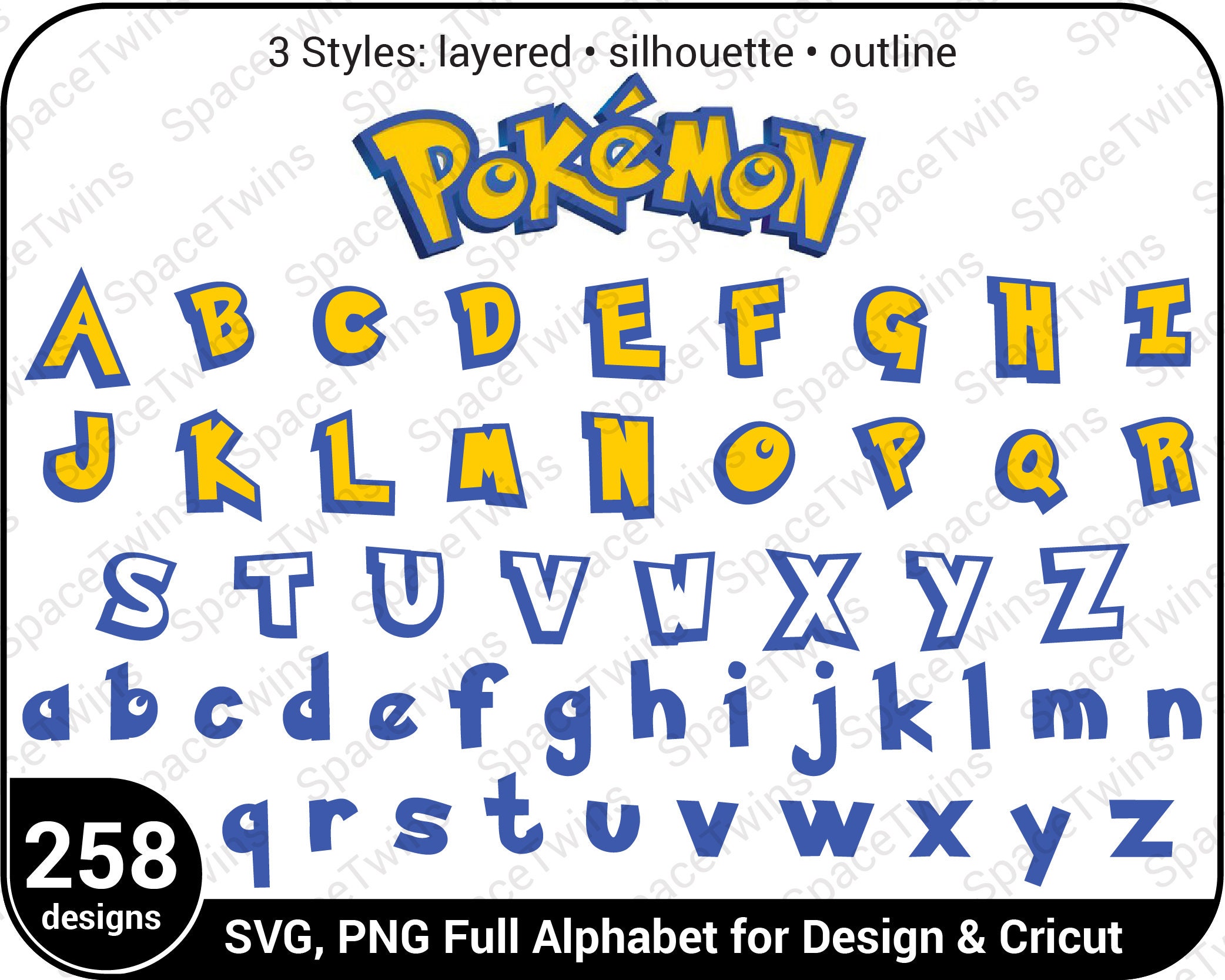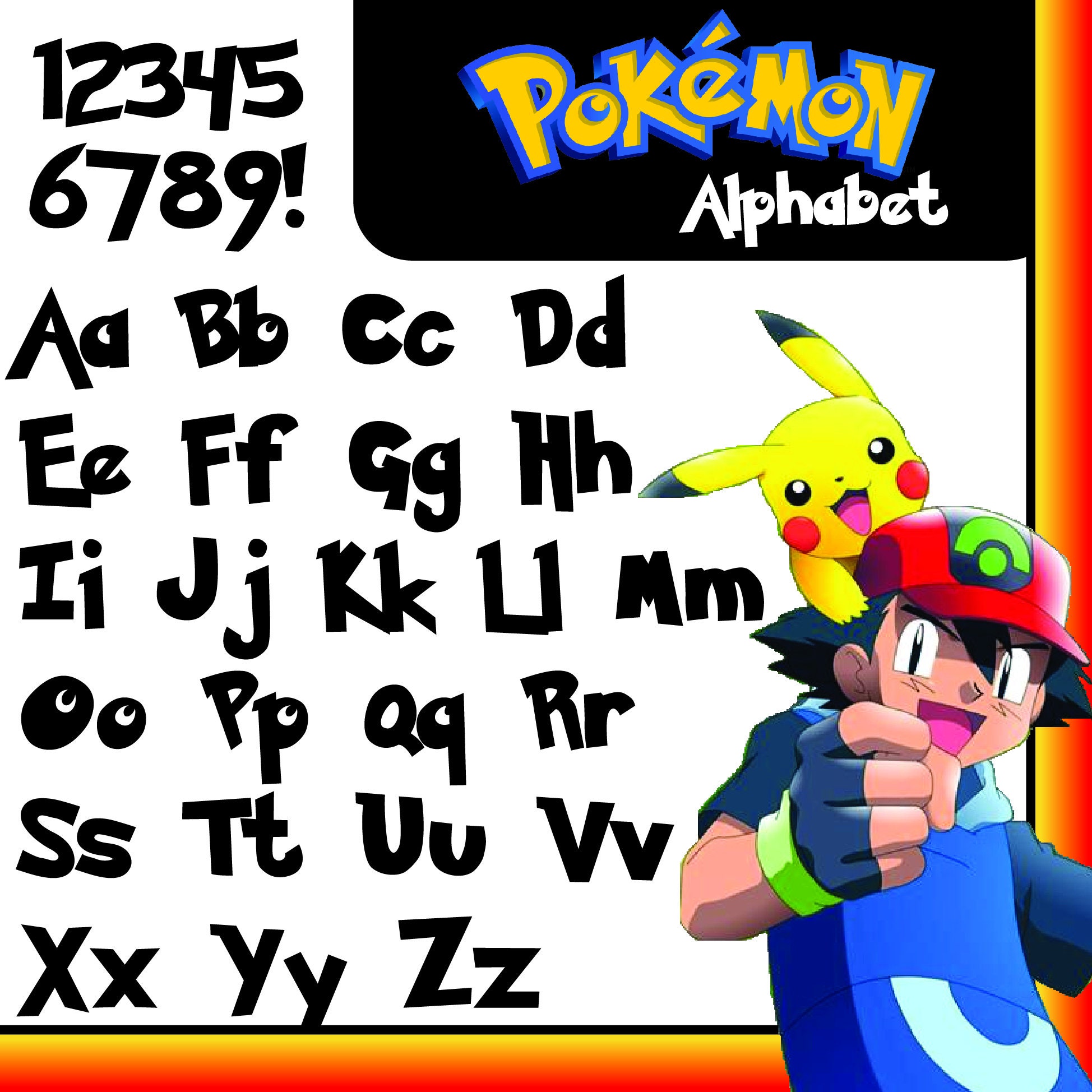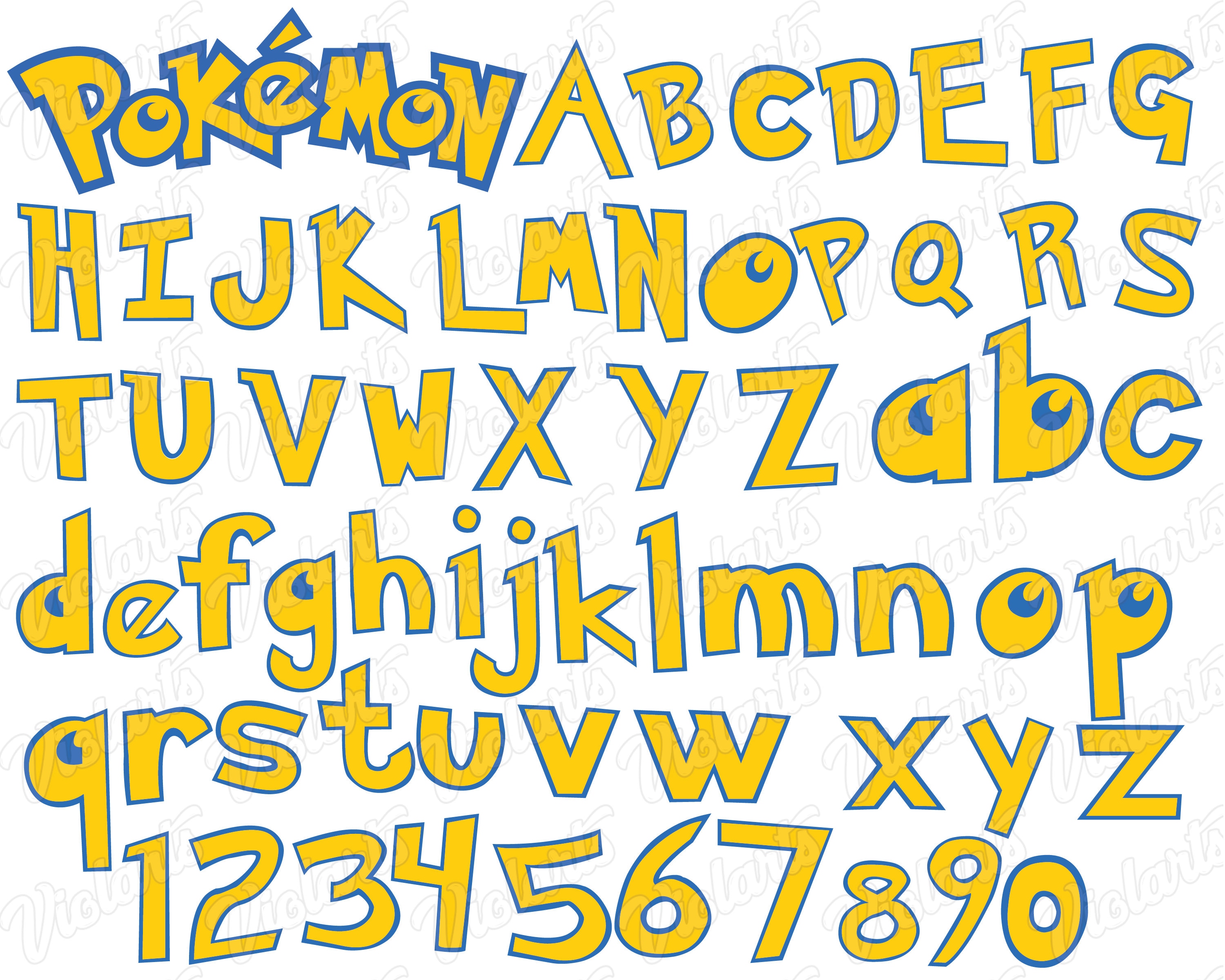
Pokemon Font Letters
Pokemon Font Letters - The font is available in two styles, pokemon solid and pokemon. Design your own text with the iconic pokemon font! If you are a nostalgic (or not so much) about pokémon, evoke your best memories with these letters. Step into the captivating world of pokémon with our font generator! Generate your own custom pokemon designs with these fonts styled after pikachu and all your favorite pocket monster characters. Customize font style, size, color, and background with our free pokemon. Whether you're crafting invitations for a themed party, designing.
Design your own text with the iconic pokemon font! Whether you're crafting invitations for a themed party, designing. If you are a nostalgic (or not so much) about pokémon, evoke your best memories with these letters. Step into the captivating world of pokémon with our font generator! The font is available in two styles, pokemon solid and pokemon. Generate your own custom pokemon designs with these fonts styled after pikachu and all your favorite pocket monster characters. Customize font style, size, color, and background with our free pokemon.
The font is available in two styles, pokemon solid and pokemon. Whether you're crafting invitations for a themed party, designing. Customize font style, size, color, and background with our free pokemon. If you are a nostalgic (or not so much) about pokémon, evoke your best memories with these letters. Design your own text with the iconic pokemon font! Step into the captivating world of pokémon with our font generator! Generate your own custom pokemon designs with these fonts styled after pikachu and all your favorite pocket monster characters.
If you are a nostalgic (or not so much) about pokémon, evoke your best memories with these letters. Generate your own custom pokemon designs with these fonts styled after pikachu and all your favorite pocket monster characters. Whether you're crafting invitations for a themed party, designing. Customize font style, size, color, and background with our free pokemon. The font is.
Customize font style, size, color, and background with our free pokemon. Step into the captivating world of pokémon with our font generator! Whether you're crafting invitations for a themed party, designing. The font is available in two styles, pokemon solid and pokemon. Design your own text with the iconic pokemon font!
Whether you're crafting invitations for a themed party, designing. The font is available in two styles, pokemon solid and pokemon. Generate your own custom pokemon designs with these fonts styled after pikachu and all your favorite pocket monster characters. Step into the captivating world of pokémon with our font generator! Customize font style, size, color, and background with our free.
Whether you're crafting invitations for a themed party, designing. If you are a nostalgic (or not so much) about pokémon, evoke your best memories with these letters. Design your own text with the iconic pokemon font! Customize font style, size, color, and background with our free pokemon. Generate your own custom pokemon designs with these fonts styled after pikachu and.
Design your own text with the iconic pokemon font! Whether you're crafting invitations for a themed party, designing. Customize font style, size, color, and background with our free pokemon. Step into the captivating world of pokémon with our font generator! Generate your own custom pokemon designs with these fonts styled after pikachu and all your favorite pocket monster characters.
Whether you're crafting invitations for a themed party, designing. Step into the captivating world of pokémon with our font generator! The font is available in two styles, pokemon solid and pokemon. If you are a nostalgic (or not so much) about pokémon, evoke your best memories with these letters. Customize font style, size, color, and background with our free pokemon.
If you are a nostalgic (or not so much) about pokémon, evoke your best memories with these letters. Generate your own custom pokemon designs with these fonts styled after pikachu and all your favorite pocket monster characters. Customize font style, size, color, and background with our free pokemon. The font is available in two styles, pokemon solid and pokemon. Design.
Generate your own custom pokemon designs with these fonts styled after pikachu and all your favorite pocket monster characters. Step into the captivating world of pokémon with our font generator! If you are a nostalgic (or not so much) about pokémon, evoke your best memories with these letters. The font is available in two styles, pokemon solid and pokemon. Whether.
If you are a nostalgic (or not so much) about pokémon, evoke your best memories with these letters. The font is available in two styles, pokemon solid and pokemon. Whether you're crafting invitations for a themed party, designing. Customize font style, size, color, and background with our free pokemon.
Generate Your Own Custom Pokemon Designs With These Fonts Styled After Pikachu And All Your Favorite Pocket Monster Characters.
Design your own text with the iconic pokemon font!